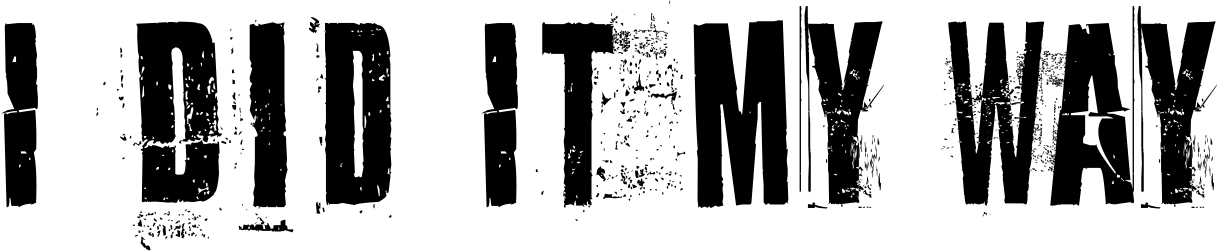
I Did It My Way Font
The rough, dirty feel plus the deformed shape of the thick, bold speckled characters of I Did It My Way are what makes this particular destroy font an excellent choice. It’s special because of the combination of sans serif and eroded styles and the outcome of that is a grunge-looking typography!
I Did It My Way, contains capital alphabets, numbers, and punctuation but there are no lowercase letters. This font is a useful choice, for books, logos, branding, clothes, and games.